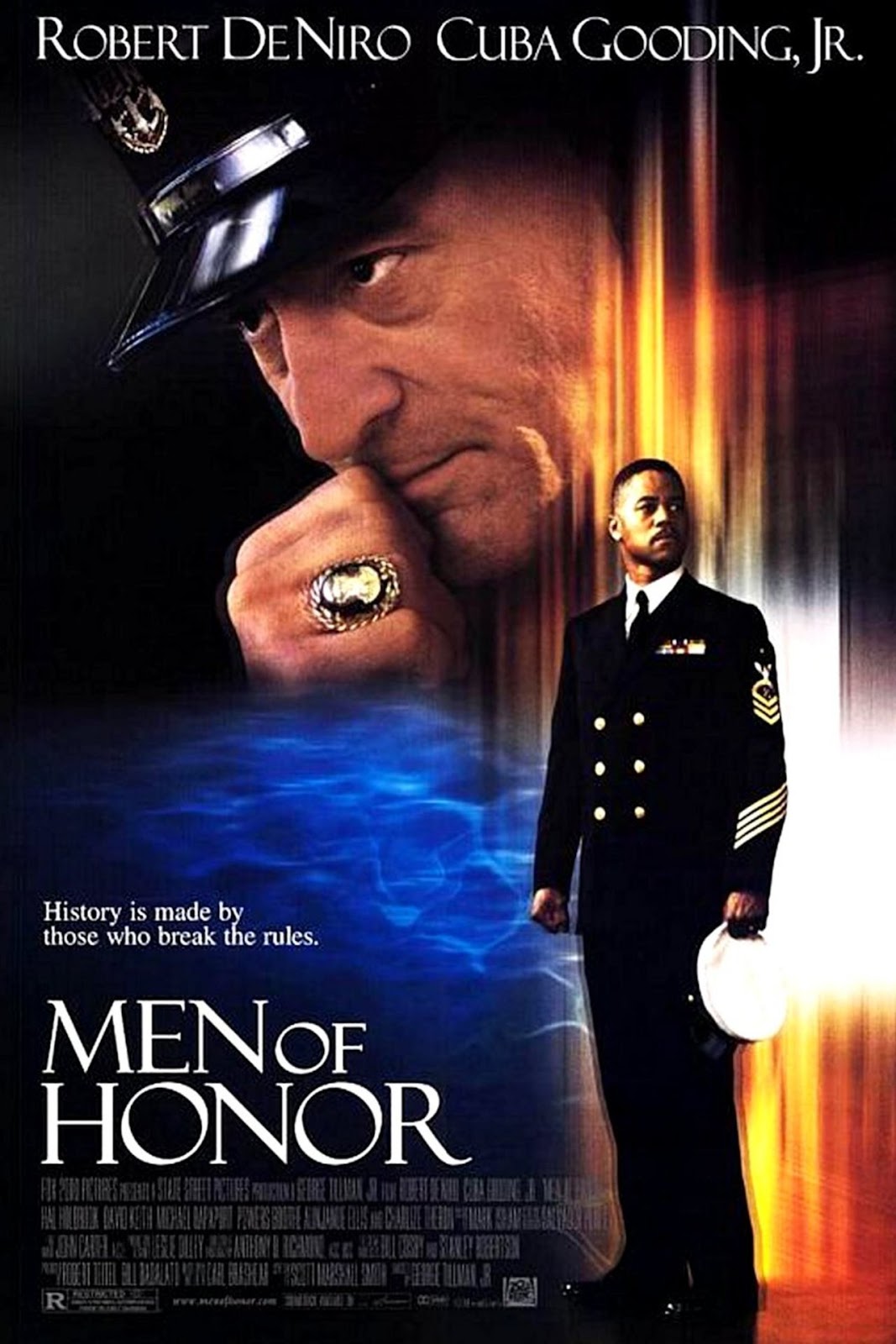
Men of Honor Font
DramaMen of Honor is a biographical drama film directed by George Tillman Jr. and starring Cuba Gooding Jr. and Robert De Niro. The film tells the true story of Carl Brashear, the first African American master diver in the United States Navy.
The title of the film on the poster uses a font called Felix Titling, which is based on an alphabet created by the 15th century calligrapher and painter Felice Feliciano.